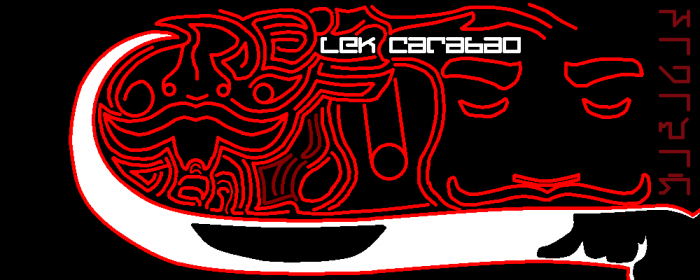
Based off a drawing I made with a specific design of lettering. The title is meant to mean "cyberpunk" but spelled with Japanese romaji phonetics.
Example usage but the sara characters would be shifted to the side A LOT when typed in. Only the "I" (pronounced like E) based ones and a few do work but some remain off place. The Mai tai ku (◌็) for example does this and had to be typed separately and postitioned correctly.